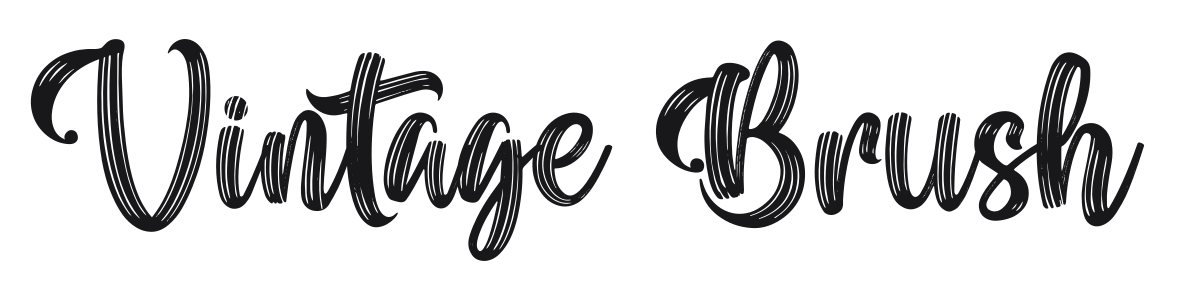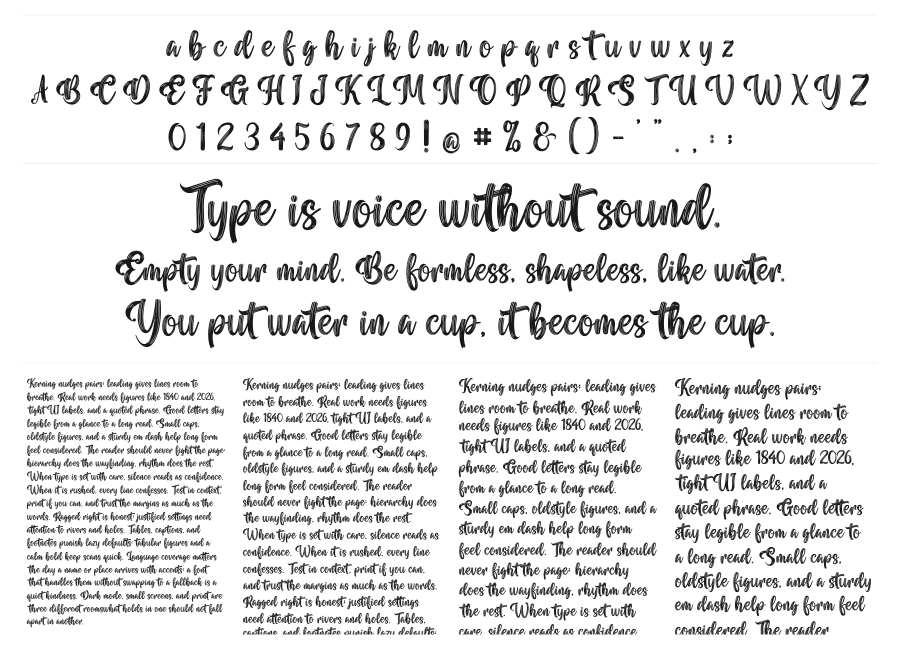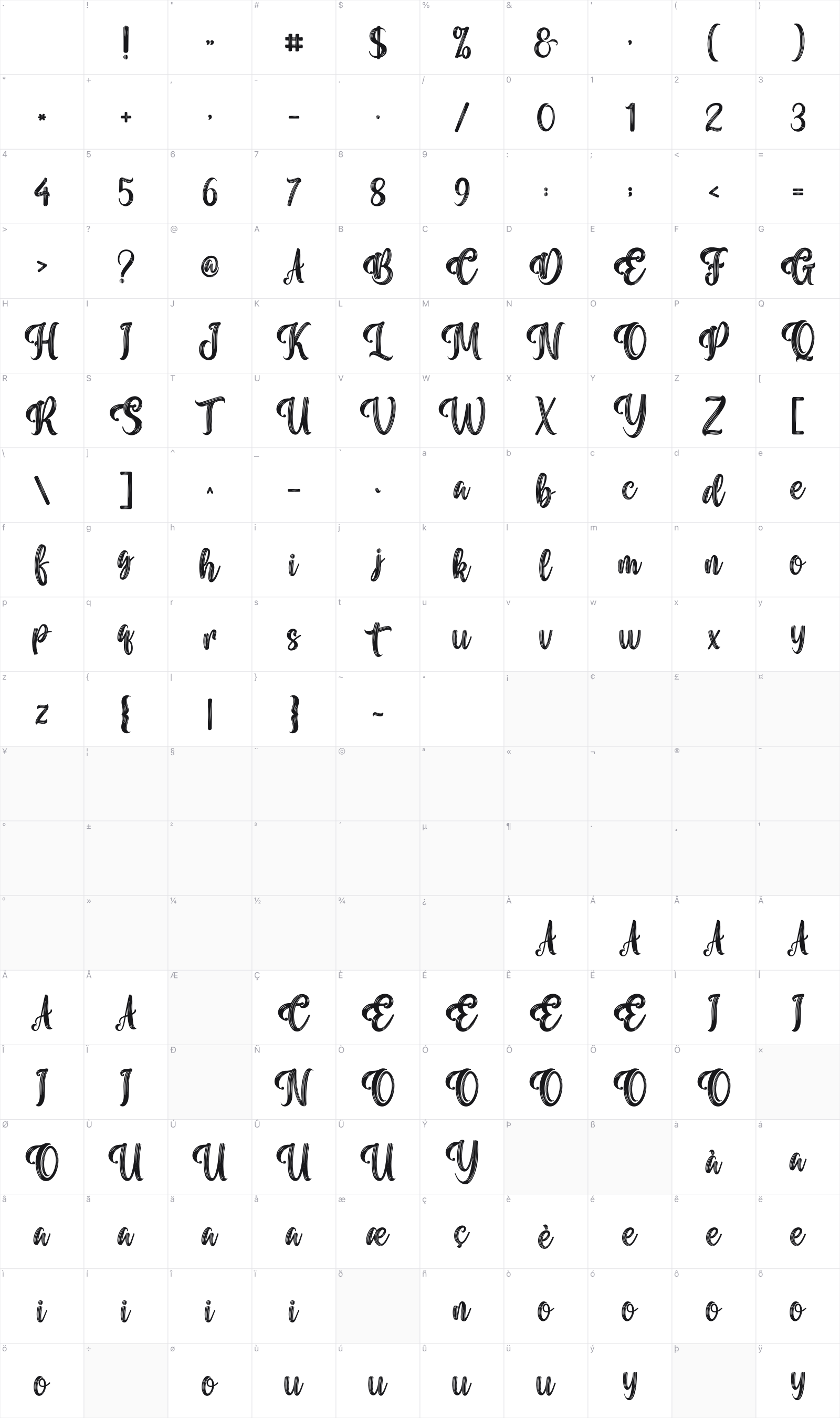
Vintage Brush
Vintage Brush is a bold, textured brush script with thick downstrokes that split into visible bristle lines, giving it a raw, hand-lettered energy. The letters flow in a continuous cursive with bouncy baselines and dramatic stroke contrast. It has the look of classic American hand-lettering from signage and packaging of the mid-20th century.